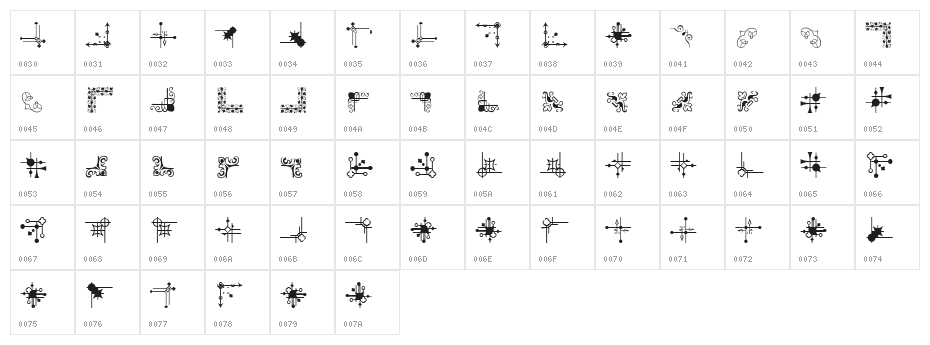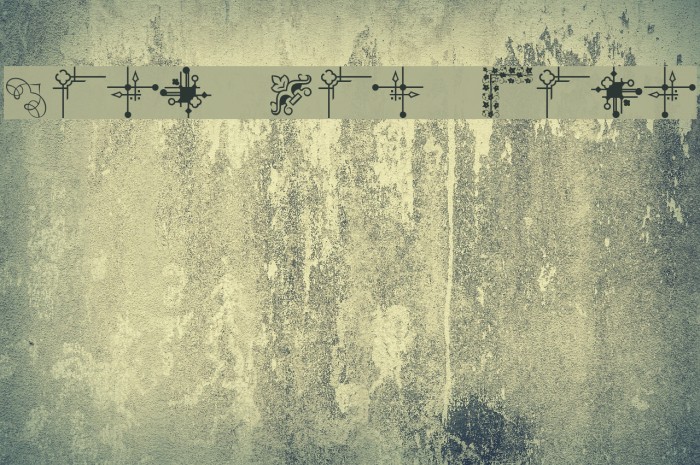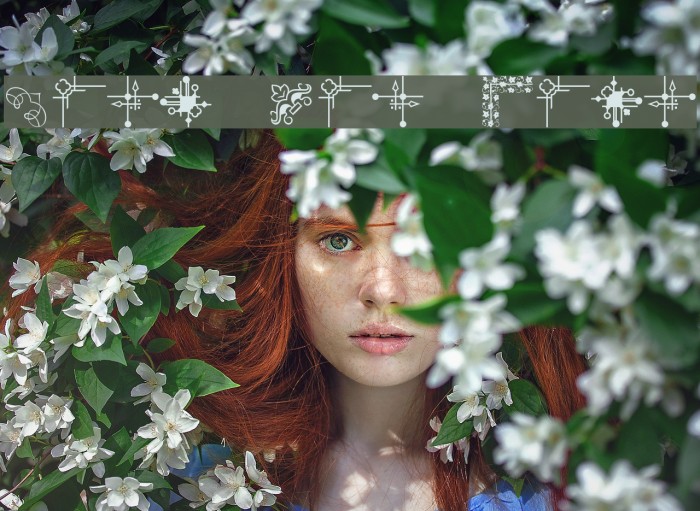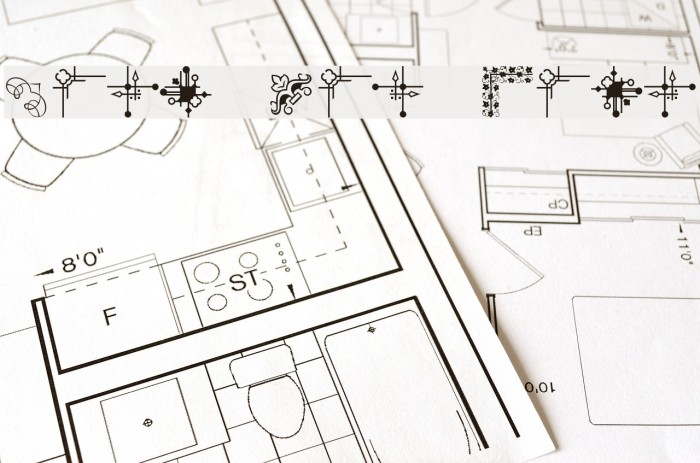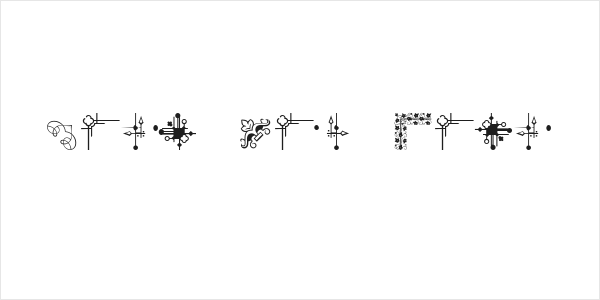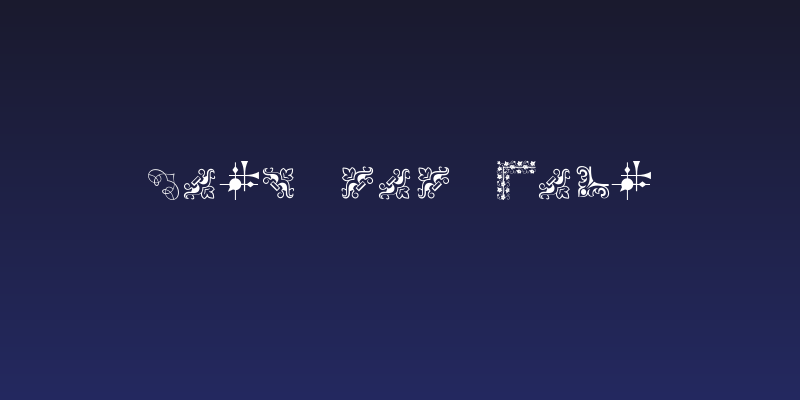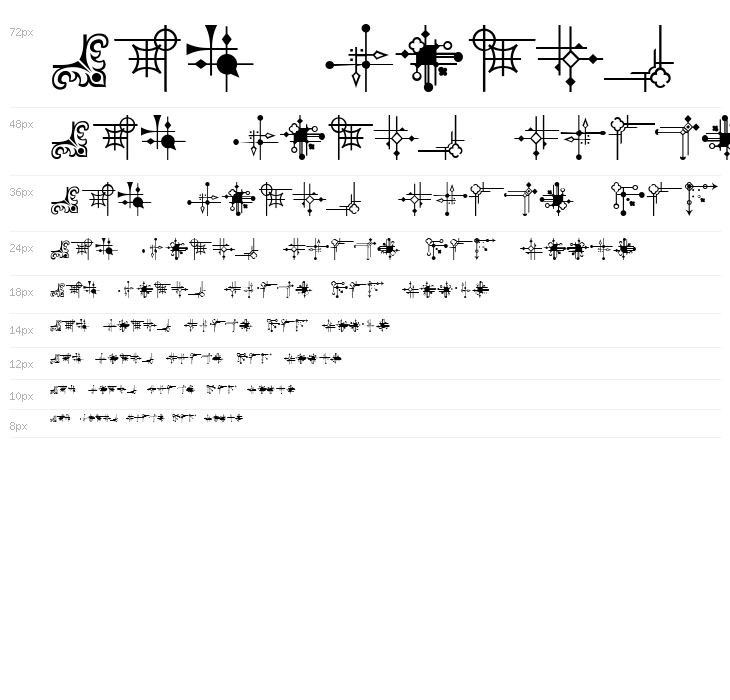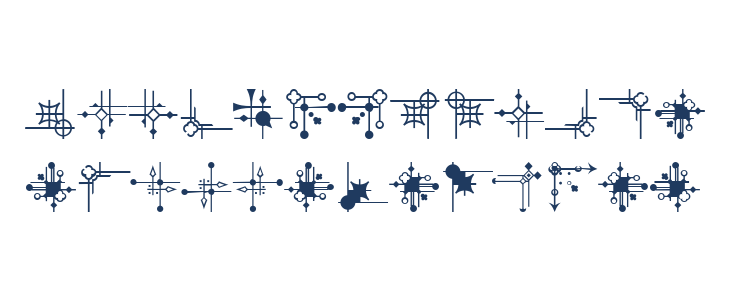
Corn Pop Four Font
Corn Pop Four Description
This font features an intricate and highly decorative style, characterized by elaborate flourishes and ornamental details. Each character is uniquely designed with a combination of geometric shapes, swirls, and embellishments that create a complex and artistic appearance. The font's design is reminiscent of vintage or steampunk aesthetics, with a focus on visual complexity and artistic expression. The characters are not uniform in style, offering a diverse range of visual elements that make each letter stand out. This font is ideal for projects that require a distinct and eye-catching design element.
| Use Case | Logos, Headlines, Artistic designs |
| Proposed Projects | Ideal for artistic projects, posters, album covers, or any design requiring a unique and decorative touch. |